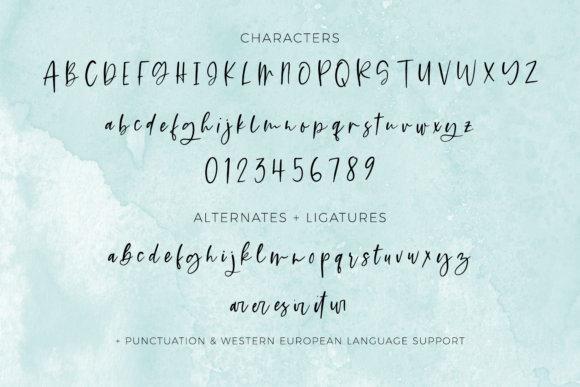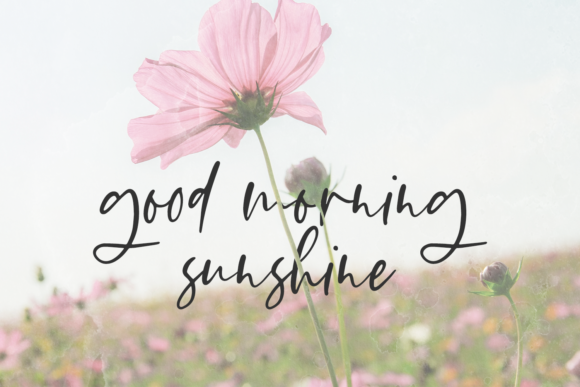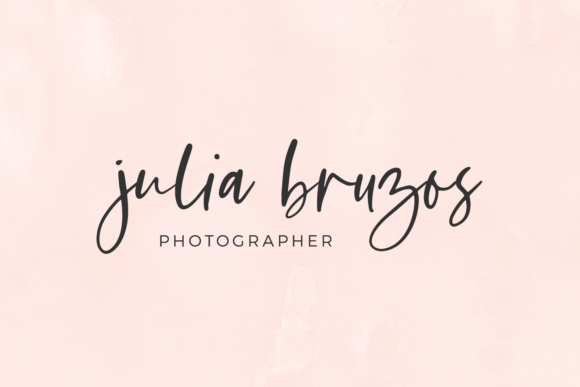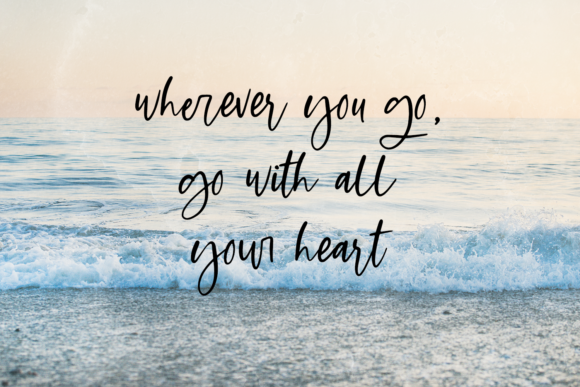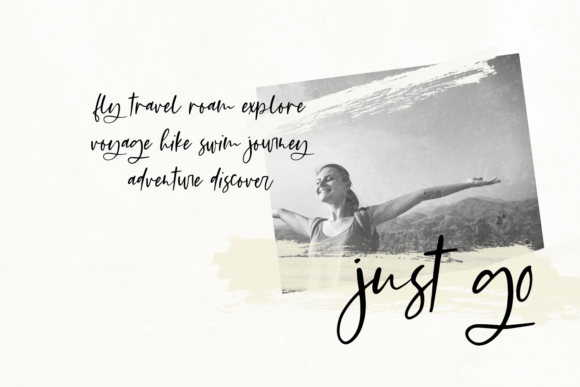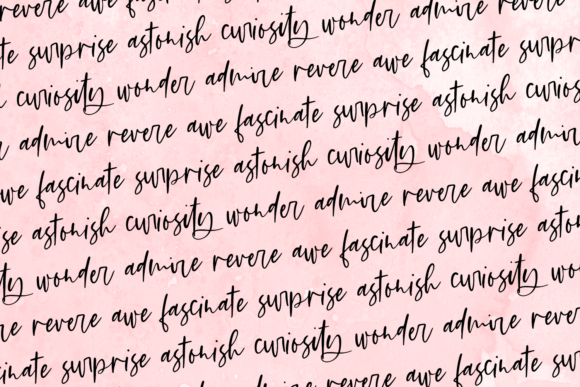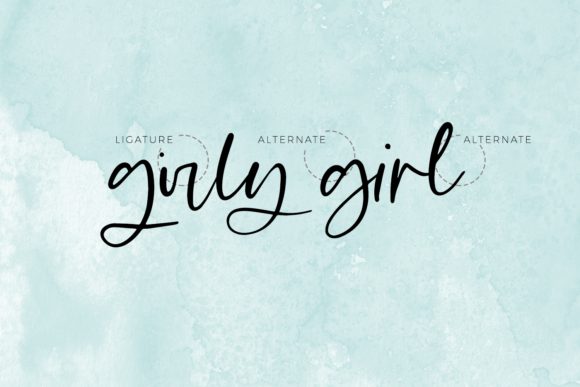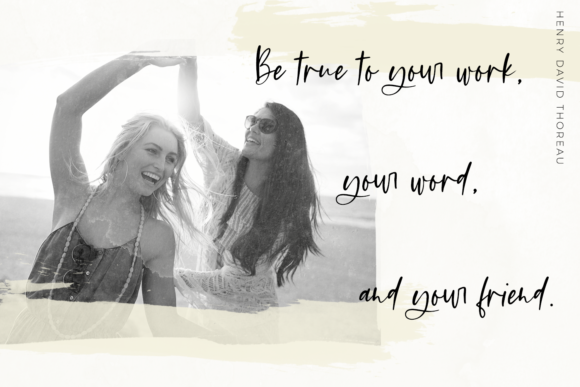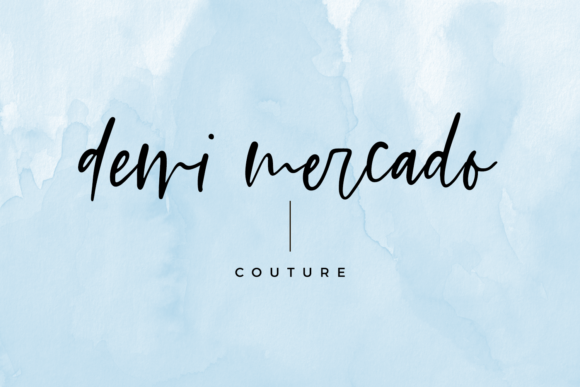
HomeScript FontsFlirty Font Script Fonts Flirty Font FacebookXPinterestWhatsApp Flirty Font Poster 2 Flirty Font Poster 3 Flirty Font Poster 4 Flirty Font Poster 5 Flirty Font Poster 6 Flirty Font Poster 7 Flirty Font Poster 8 Flirty Font Poster 9 Flirty Font Poster 10 About Flirty Font Flirty is a cute & fun handwritten script font. It will add a flirty touch to any design project! DOWNLOAD NOW People also explored Anitian Font Honey Bee Font Rups Script Font Sweet Meredith Font Mellifluous Valentine Font Gardenia LF Font Womly Queen Font Say it Softly Font Kawaii Font 318 0 TagsFlirty Font Previous articleKismet FontNext articleEireann Font LEAVE A REPLY Cancel reply Comment: Please enter your comment! Name:* Please enter your name here Email:* You have entered an incorrect email address! Please enter your email address here Website: Save my name, email, and website in this browser for the next time I comment. Personal Use Free Dream Orphans Personal Use Free Read more about this font BD Medled Personal Use Free Read more about this font Imelda Personal Use Free Read more about this font Unsteady Overseer Personal Use Free Read more about this font BLOG Free Fonts Risk: Why Free Fonts Can Be Dangerous for Designers Free Fonts Risk: Why Free Fonts Can Be Dangerous for Designers Using free fonts is a common practice in web and graphic design. However, the... How to Cut Any Font on Cricut: Convert a Font to SVG (Free) Fonts That Capture the Spirit of New York City How to Install and Use Fonts on Windows, macOS, and Web Projects